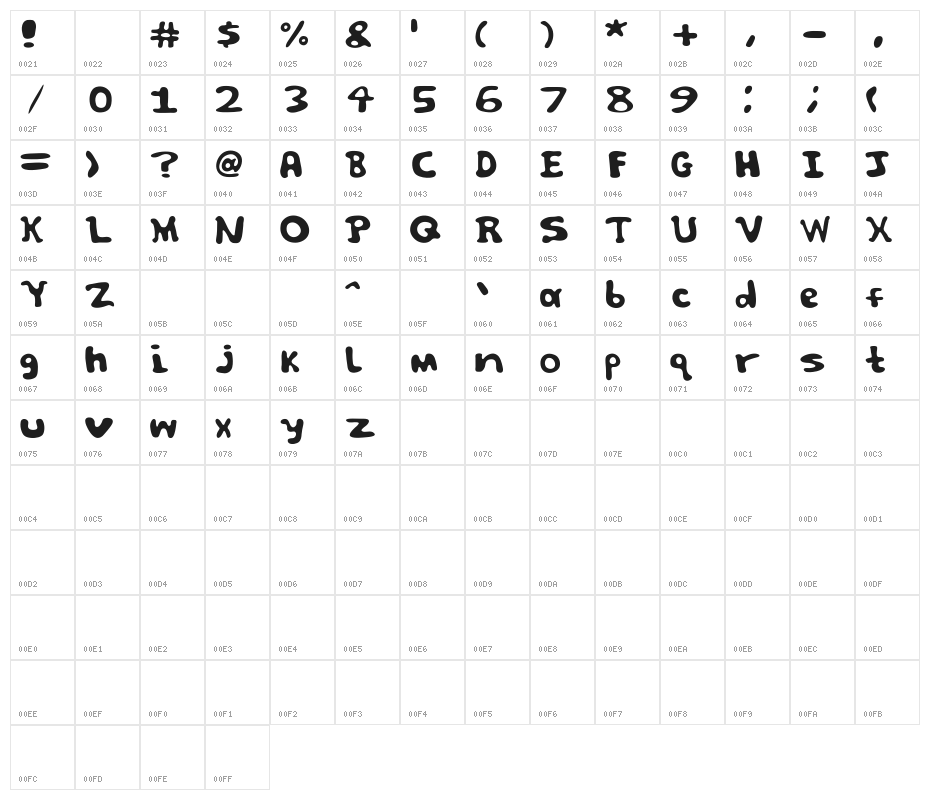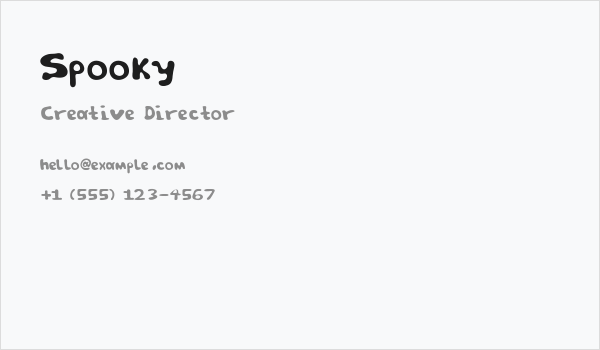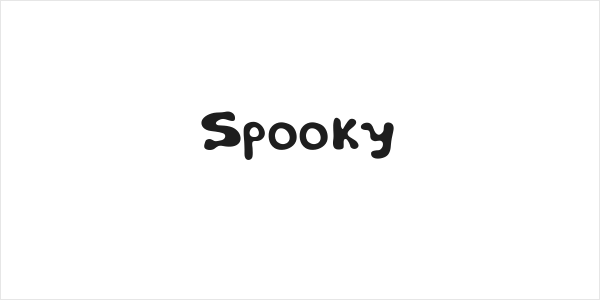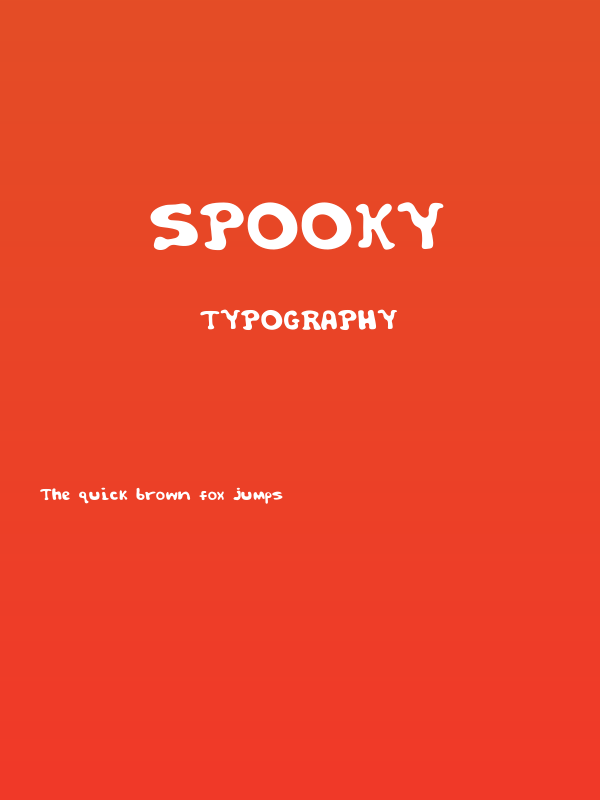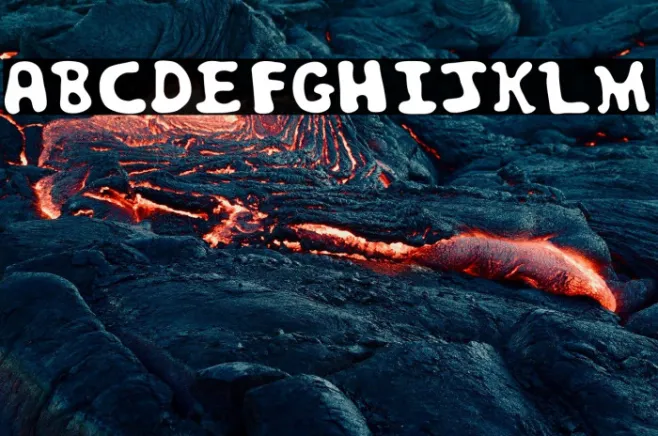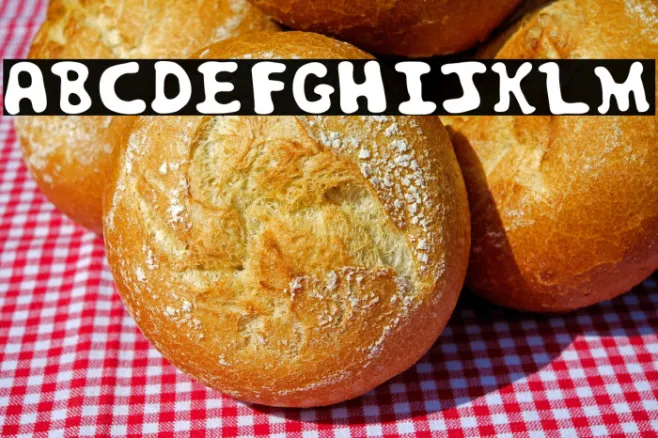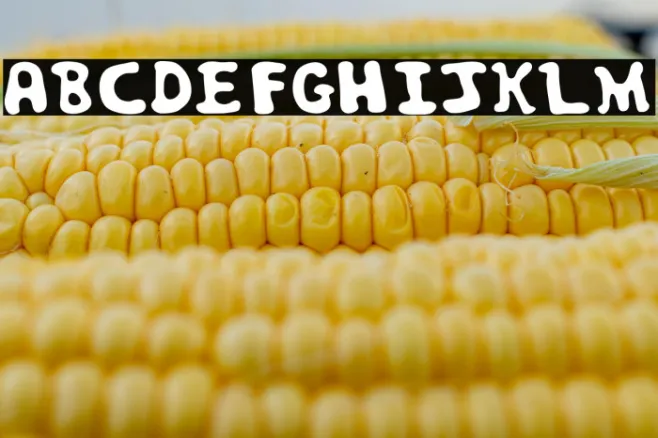
Spooky Font
Spooky Description
This font features a playful and whimsical design with a hand-drawn appearance. The characters have a slightly irregular and wavy form, giving them a spooky yet friendly vibe. The strokes are thick and rounded, contributing to a bold and eye-catching look. The overall style is informal and fun, making it suitable for creative and themed projects. The font includes a full set of uppercase and lowercase letters, numbers, and a variety of special characters, all maintaining the same quirky style.
| Use Case | Headlines, Logos, Themed Events |
| Proposed Projects | Ideal for Halloween-themed designs, children's book covers, party invitations, and playful branding. |